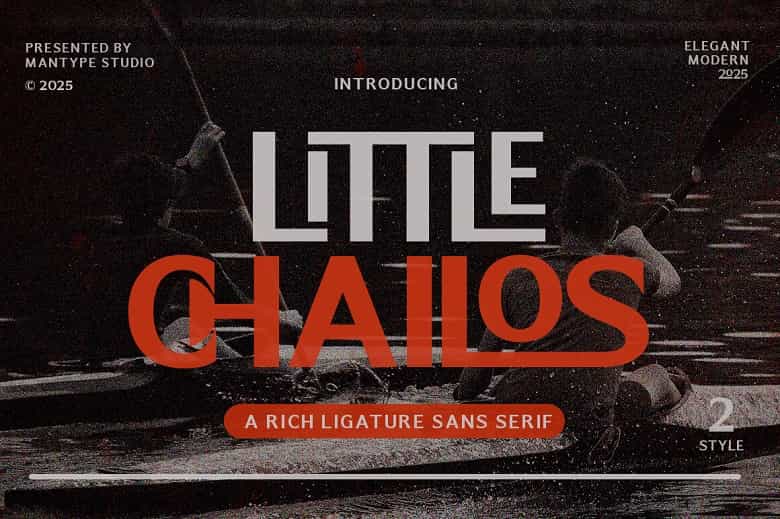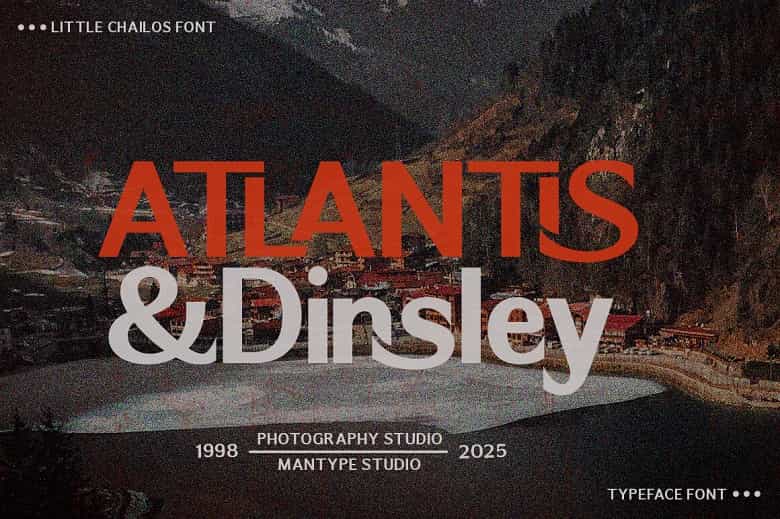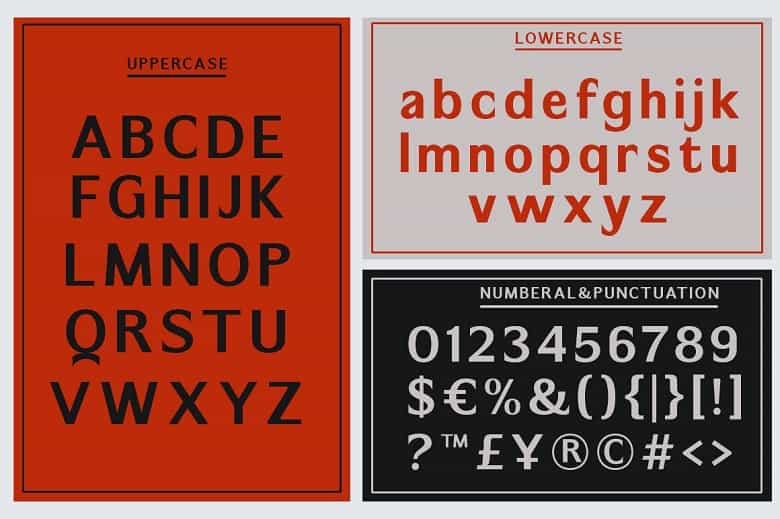
Little Chailos is a contemporary sans serif typeface with a distinctive connection, a high contrast and a light look suitable for feminine logos, fashion heads, and editorial designs, branding, apparel branding, packaging, magazines, ads, t-shirts, postcards, and much more.